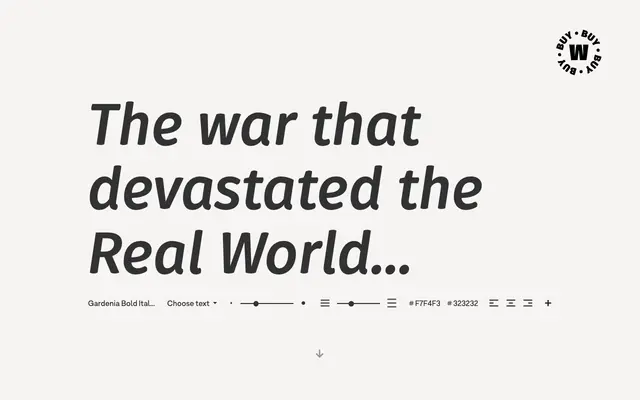
Gardenia
W Type Foundry · Salvador Rodríguez · 2015
A nine-weight grotesque sans by Salvador Rodríguez, spanning Thin to Ultrablack with matching italics for both text and display use.
Designed by Salvador Rodríguez between 2015 and 2016, this grotesque sans runs across 18 styles covering nine weights from Thin to Ultrablack, each with a matching italic. The mid-range weights are tuned for legibility in body text, while the extreme cuts at Black and Thin read as strong display faces. A broad OpenType feature set rounds out a family aimed at graphic design, editorial and screen applications.
Described explicitly as a grotesk sans-serif by the foundry, with characteristics typical of the grotesque tradition: strong legibility at text sizes and expressive extremes at display weights.